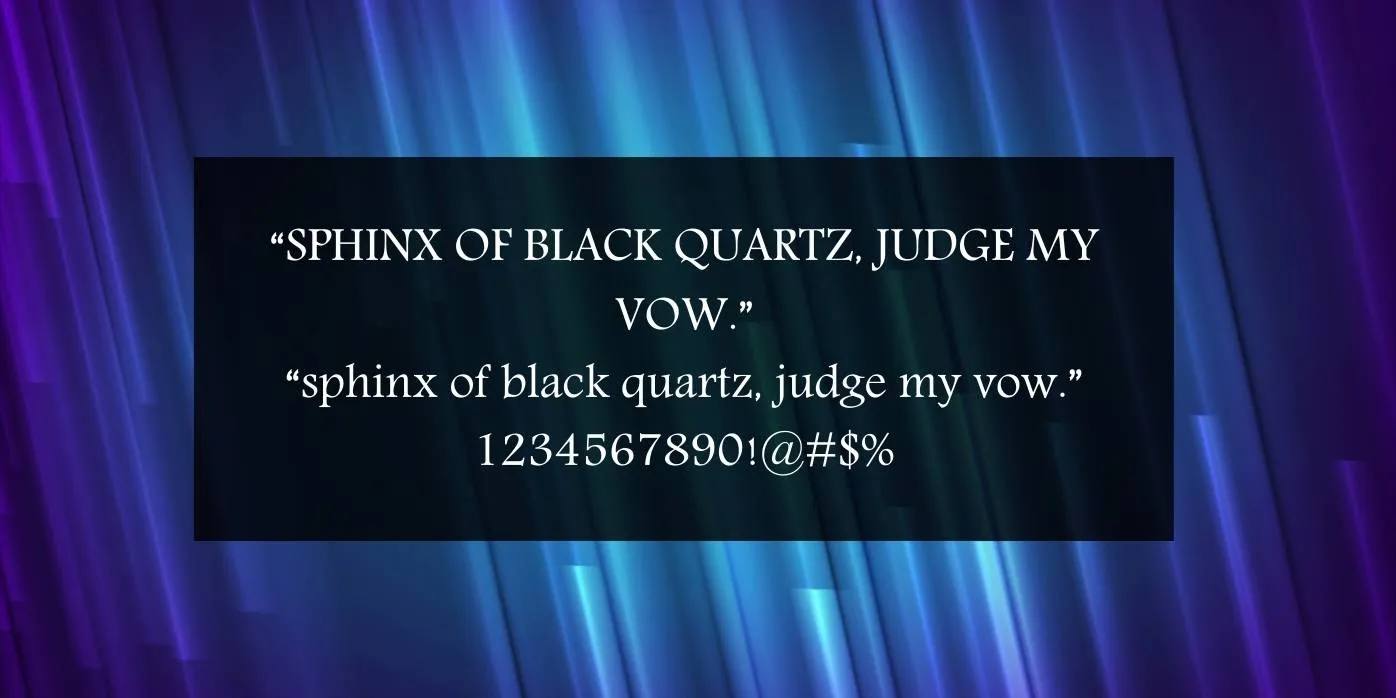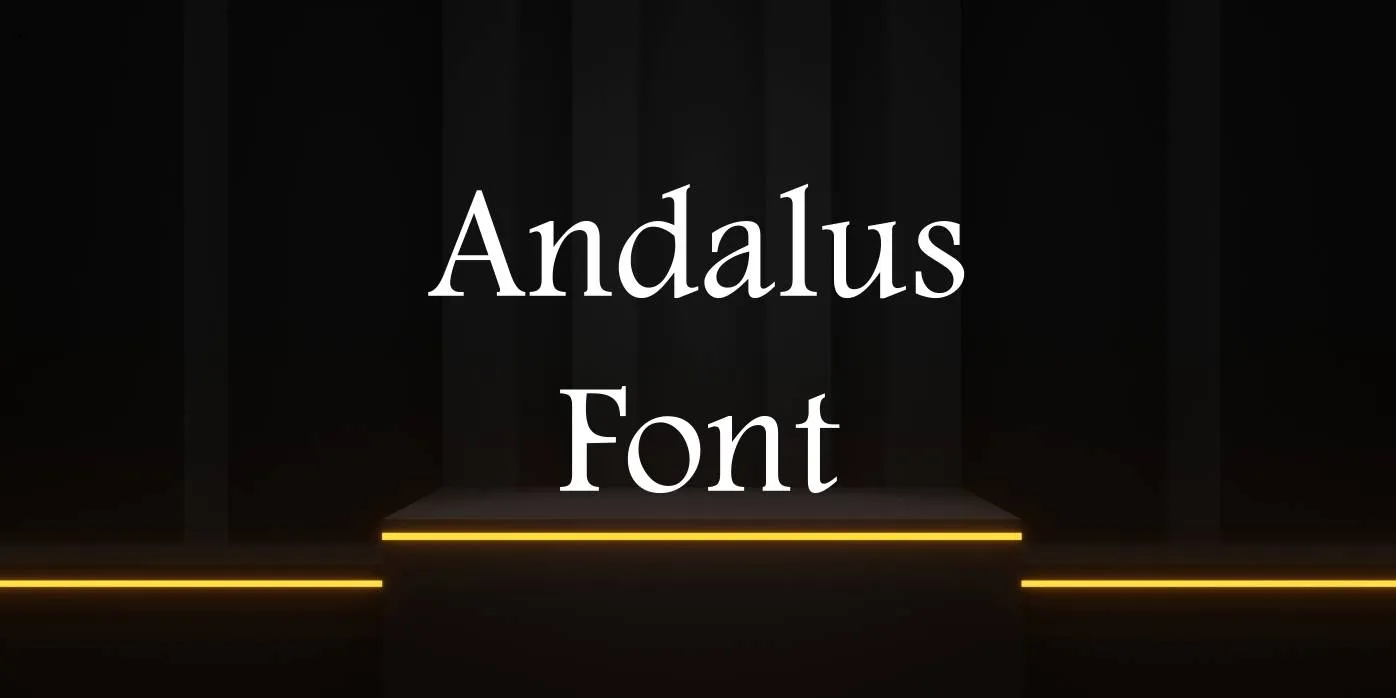
Andalus Font
Andalus Font belongs to the serif font family. This typeface was manufactured by Steve Matteson.  This gorgeous font was released in 2004. It has a design inspired by traditional Arabic calligraphy. This classy font contains characters from the Arabic alphabet, as well as Latin characters with diacritical marks.
It is a good choice for typesetting text in multiple languages. Andalus Typeface is available in two styles: Regular and Bold. Each style contains 469 unique glyphs. It supports a wide range of languages, including Arabic, Persian, Urdu, and Pashto.